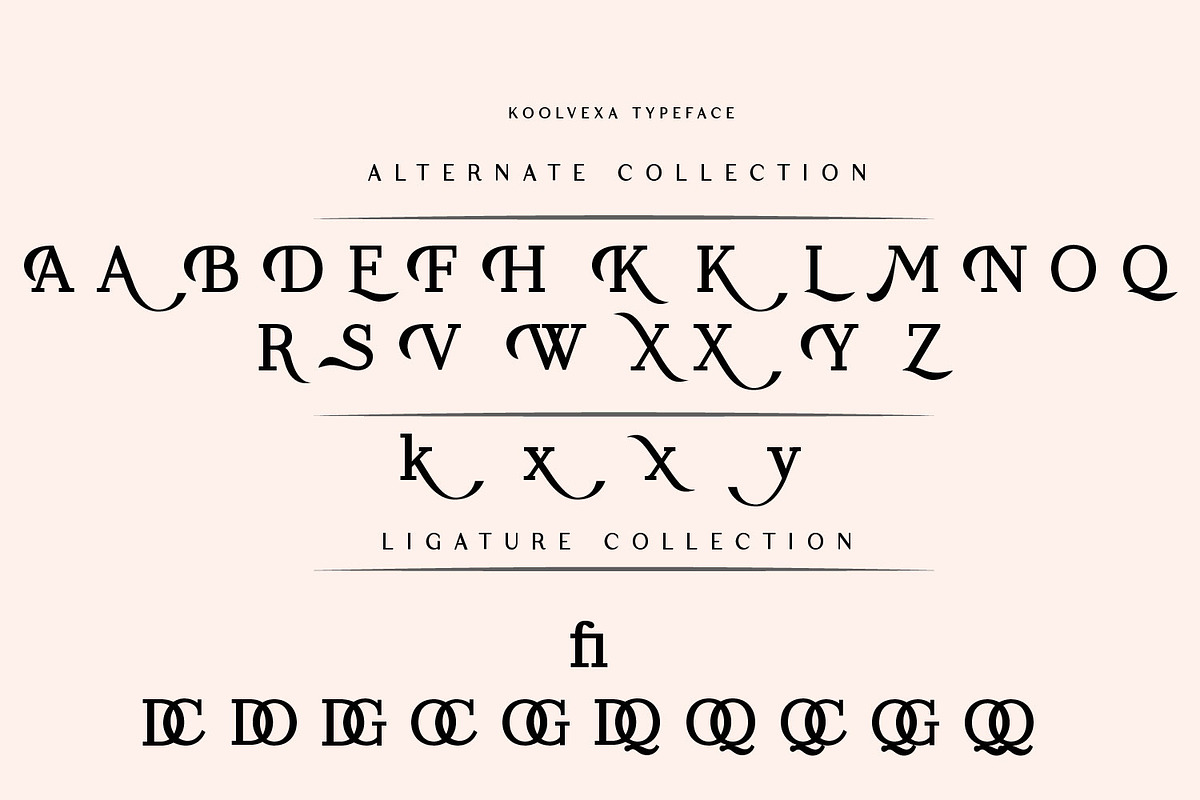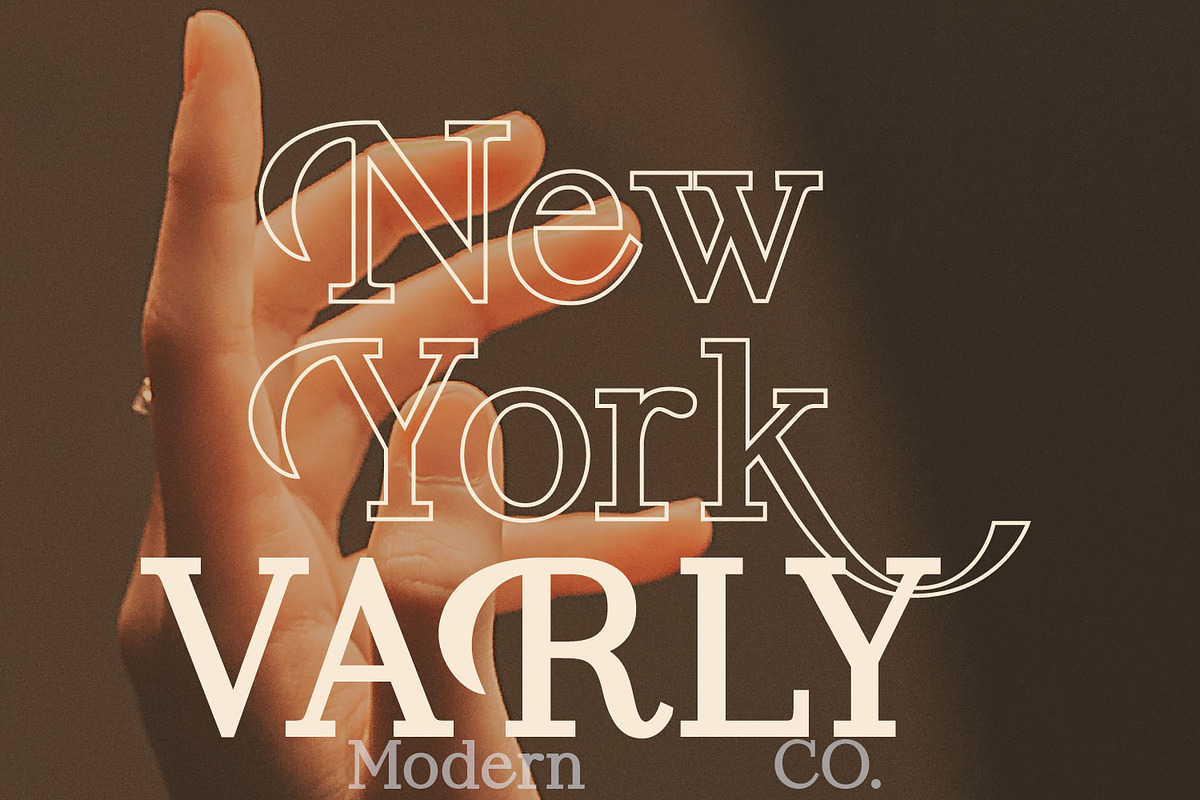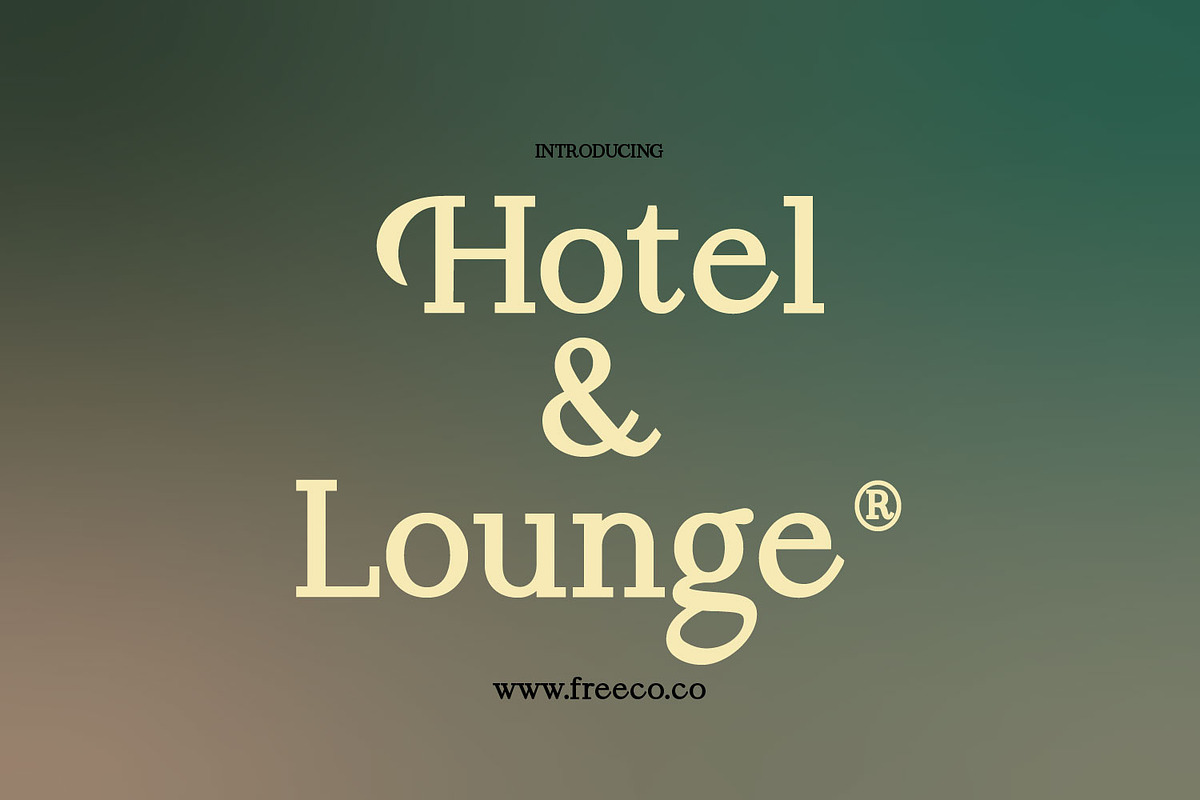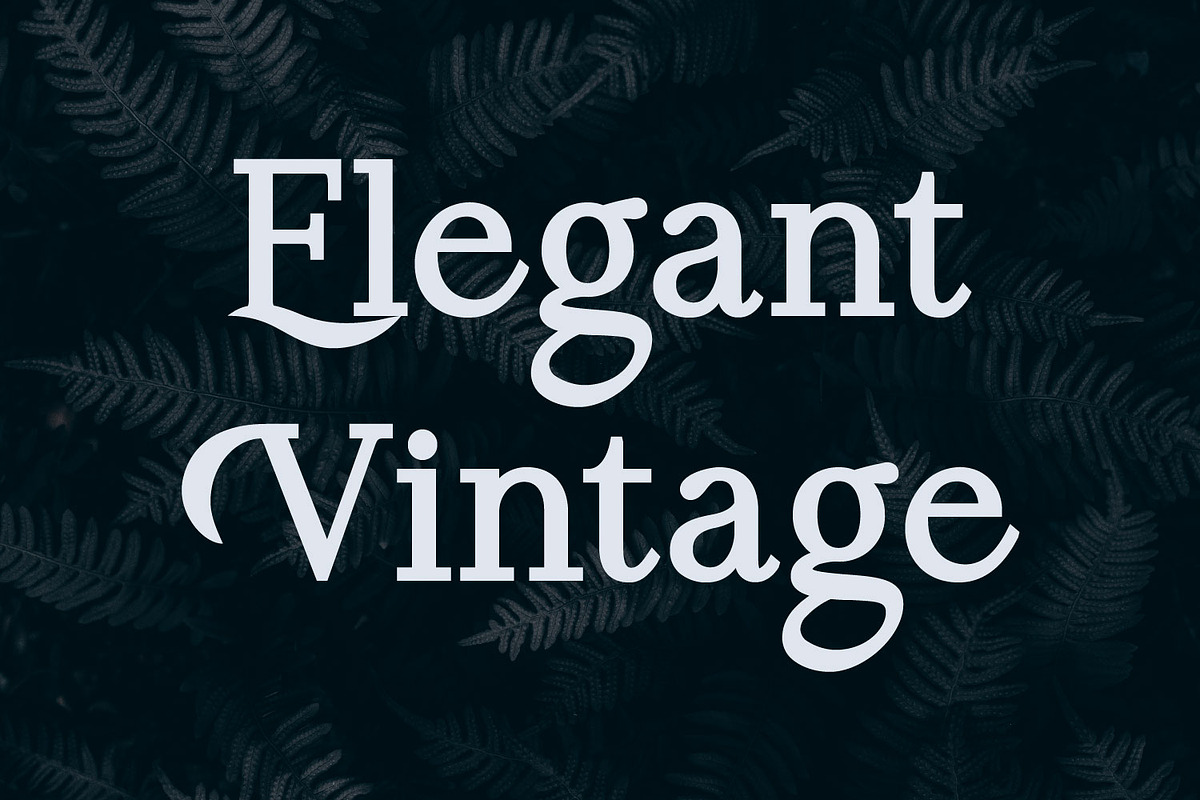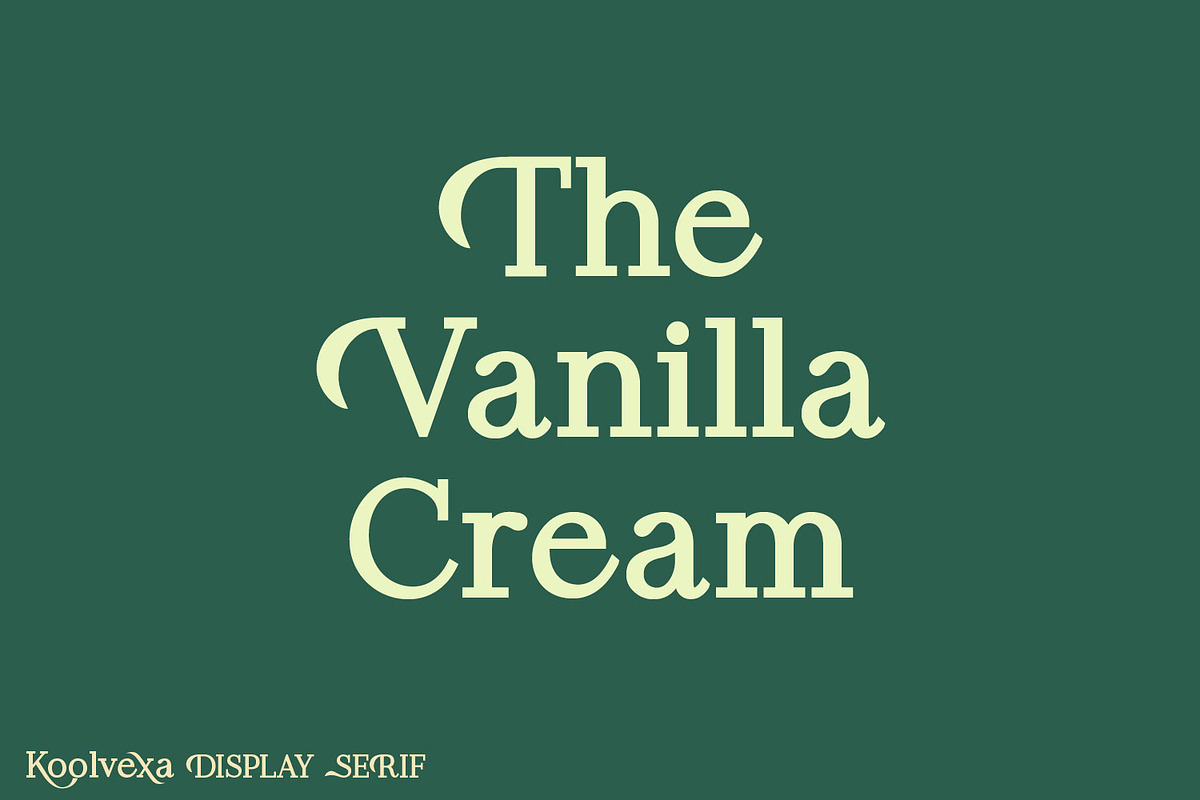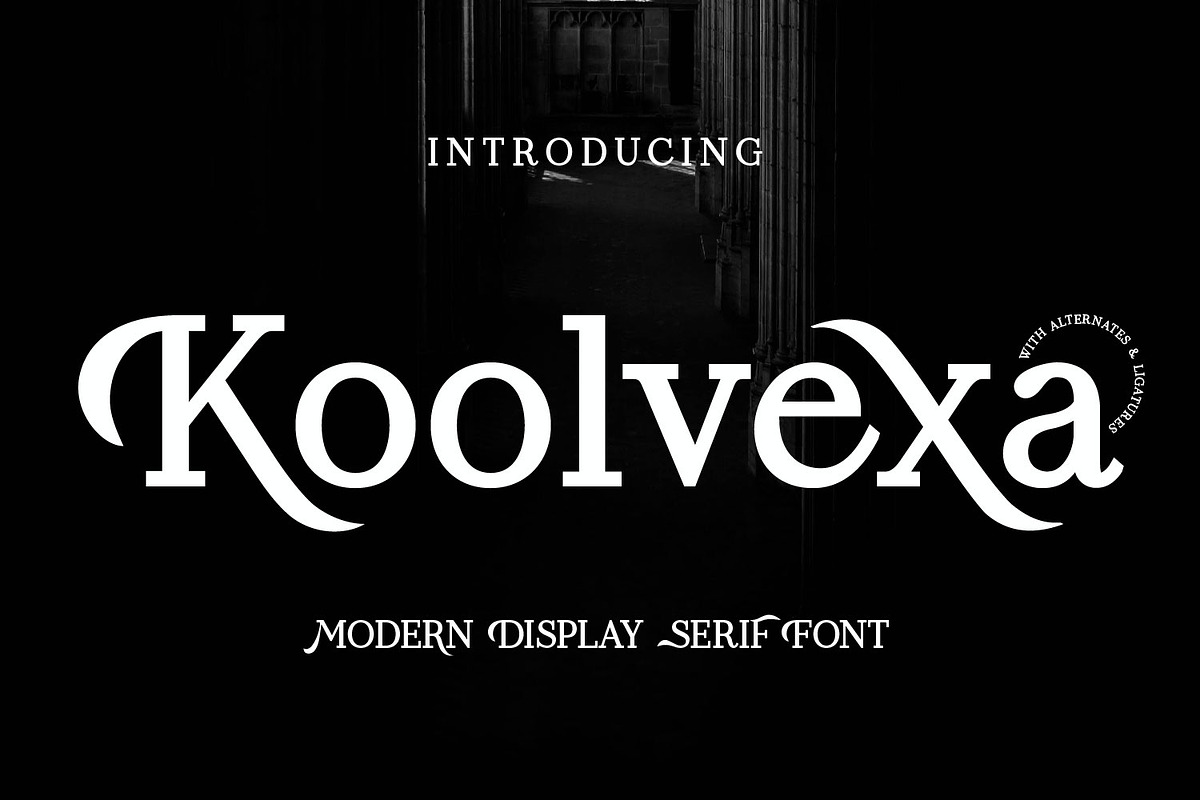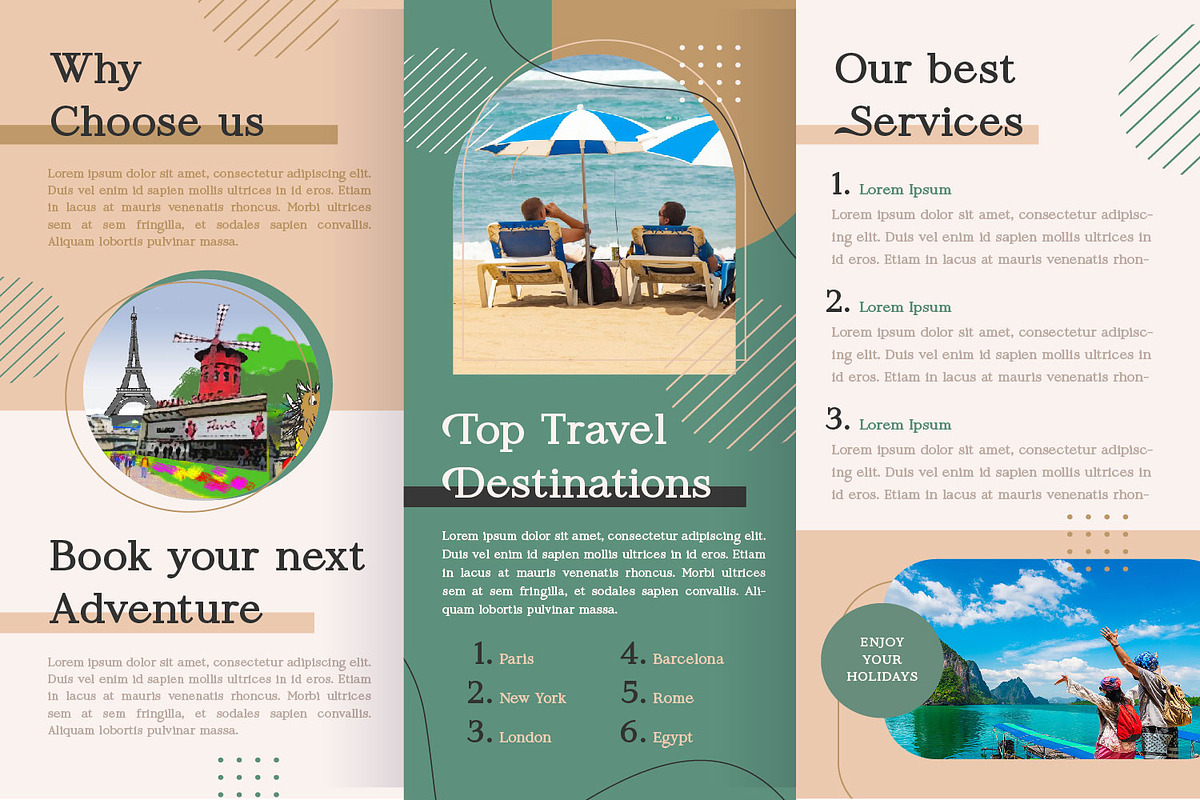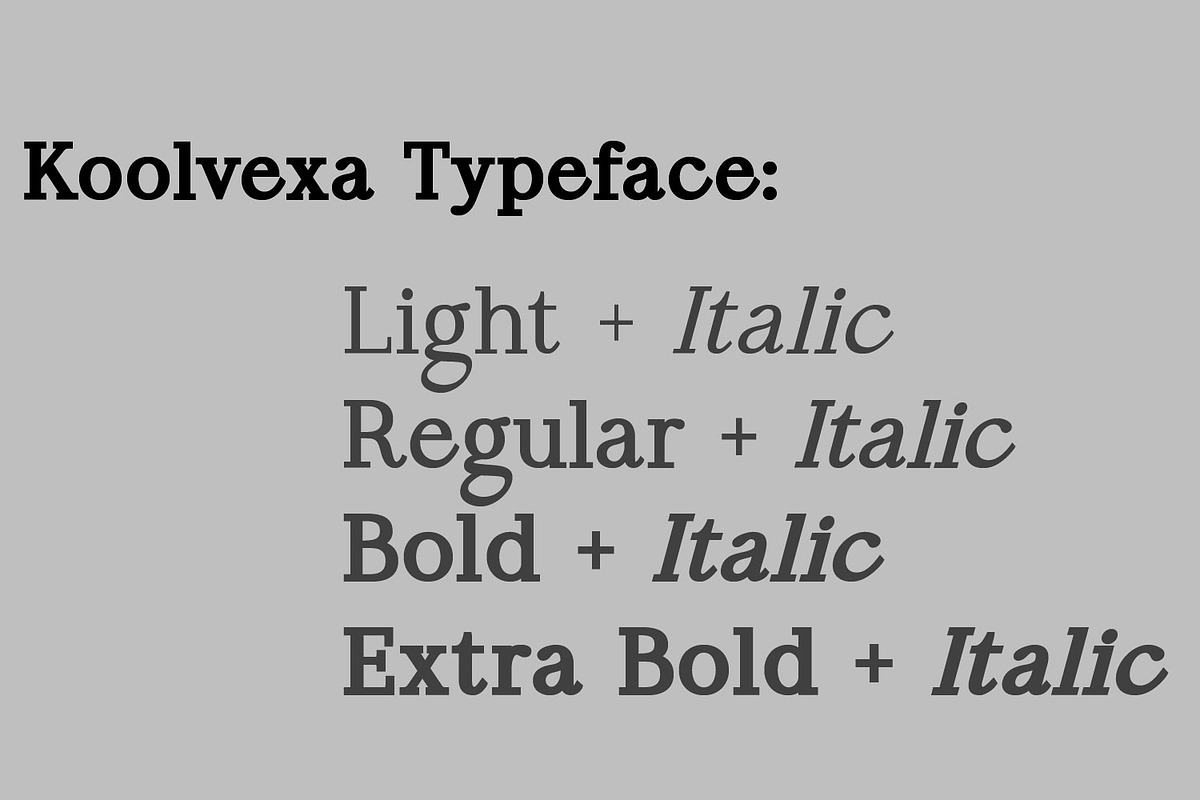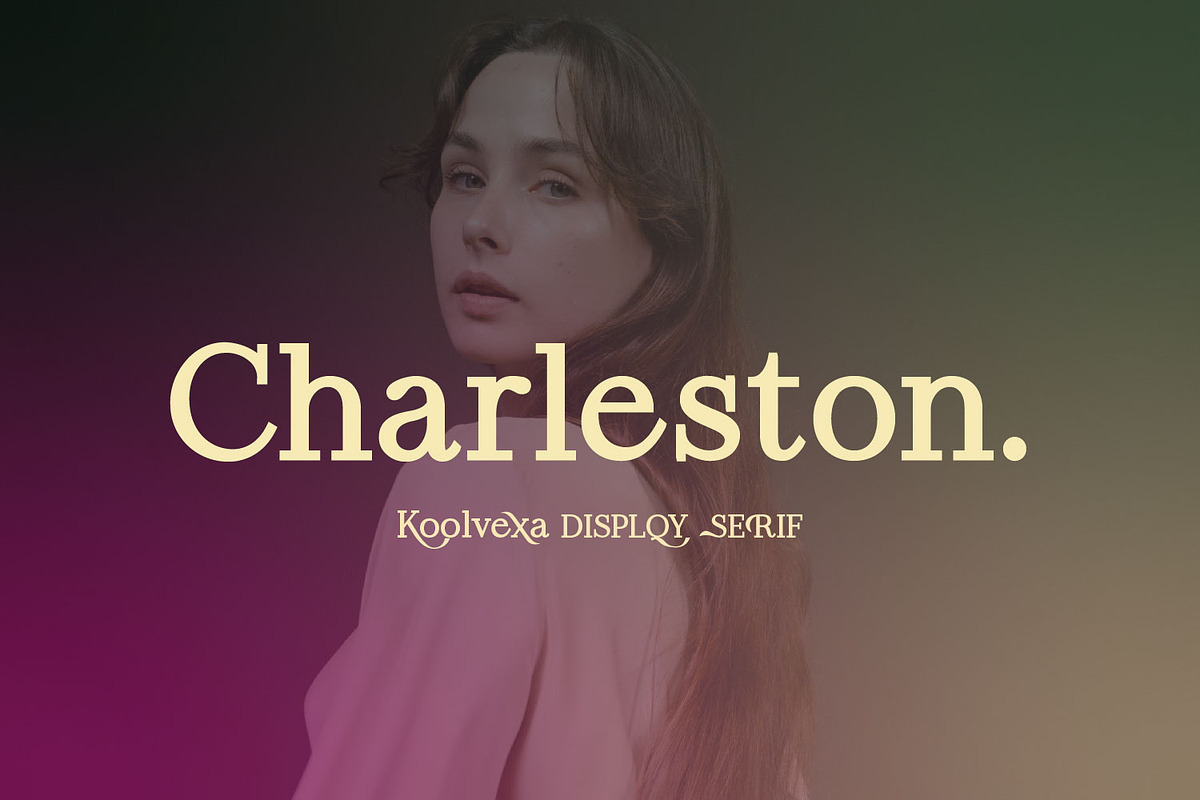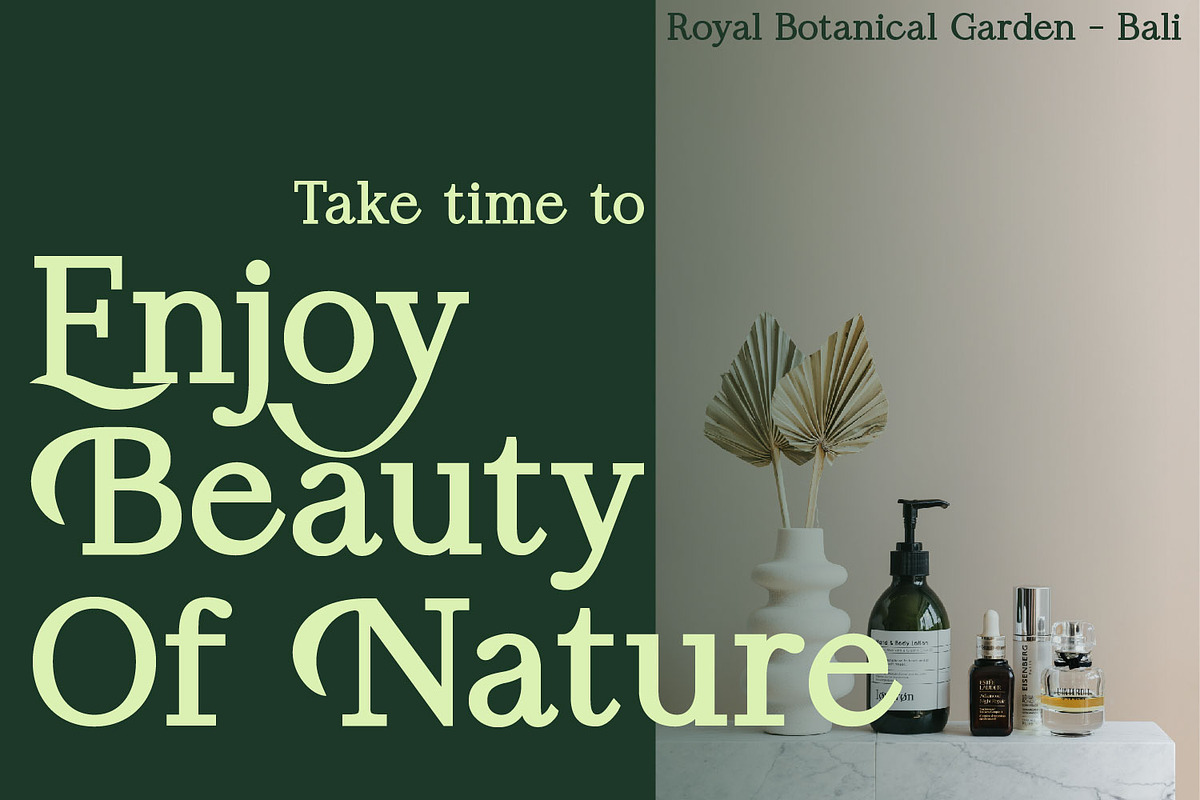
Koolvexa | A Modern Slab Serif
Koolvexa is a modern display serif font. This font is perfect for branding, logos, social media, prints, stickers, shirts, svg files and more! Koolvexa is unique as it can be used for a variety of design styles. It fits in wonderfully for free-spirited, boho designs and also for more classy editorial looks! There are a lot of fun stylistic alternates available to use with this font. These letters are embedded into the font file and easily accessible in programs such as photoshop and illustrator. Main Features:
- Uppercase & Lowercase letters
- Punctuation and special characters
- Ligatures & Alternate glyphs